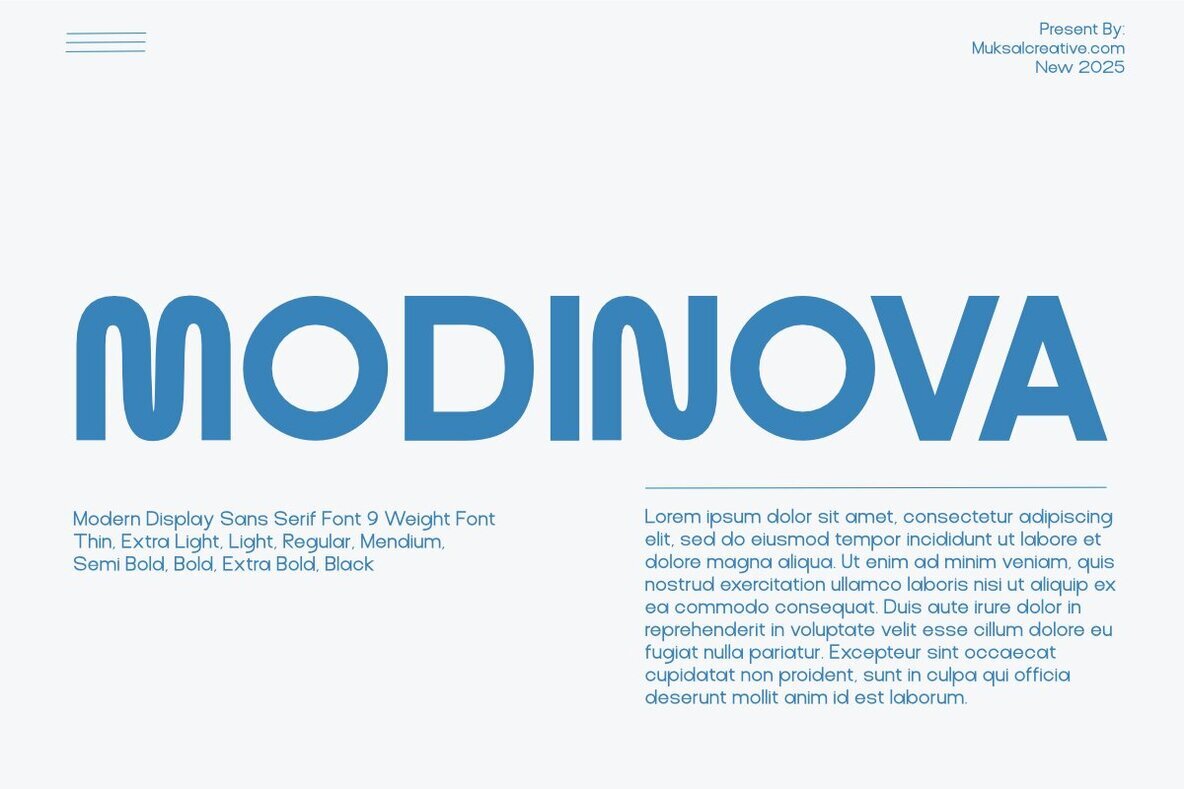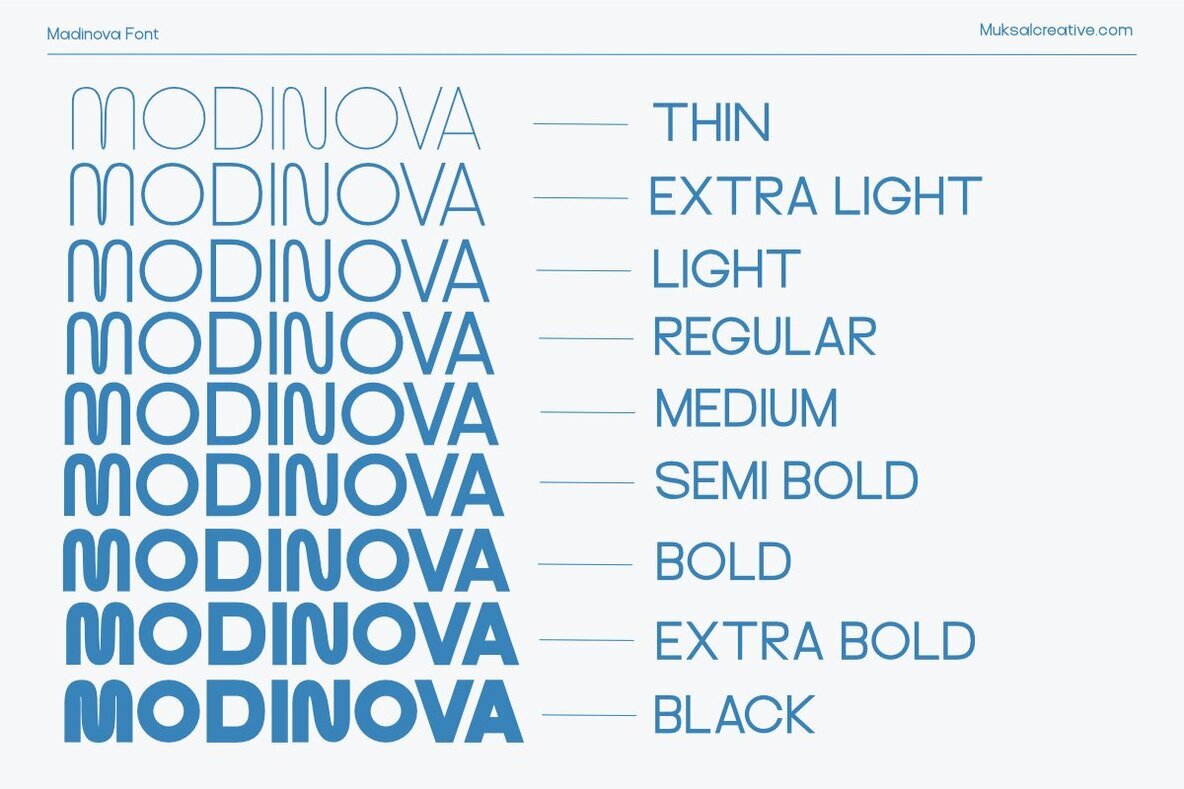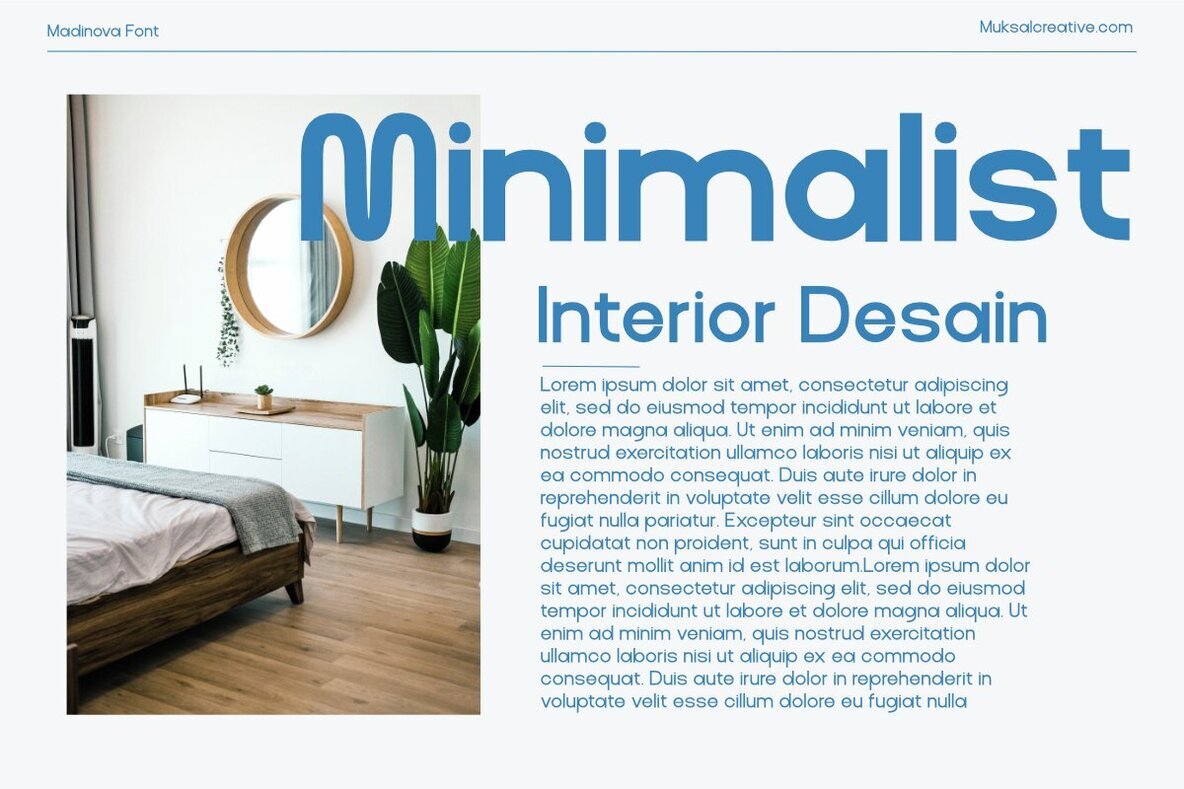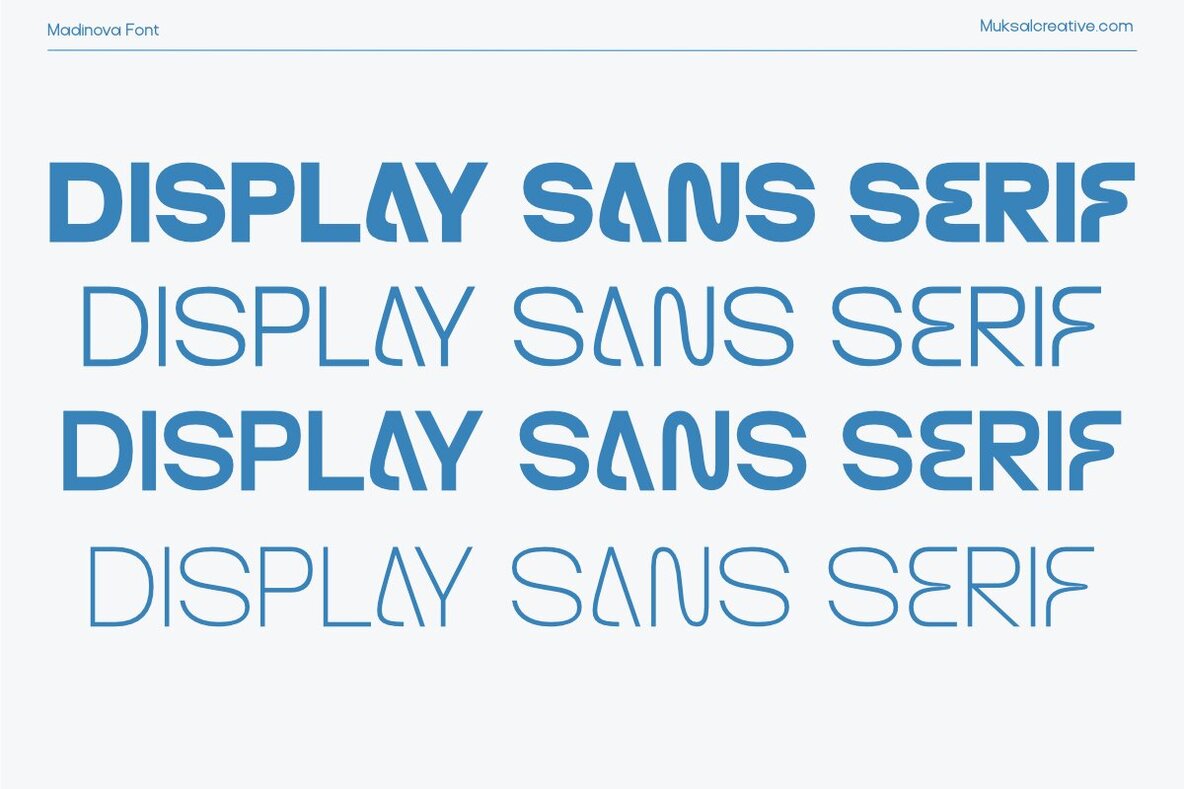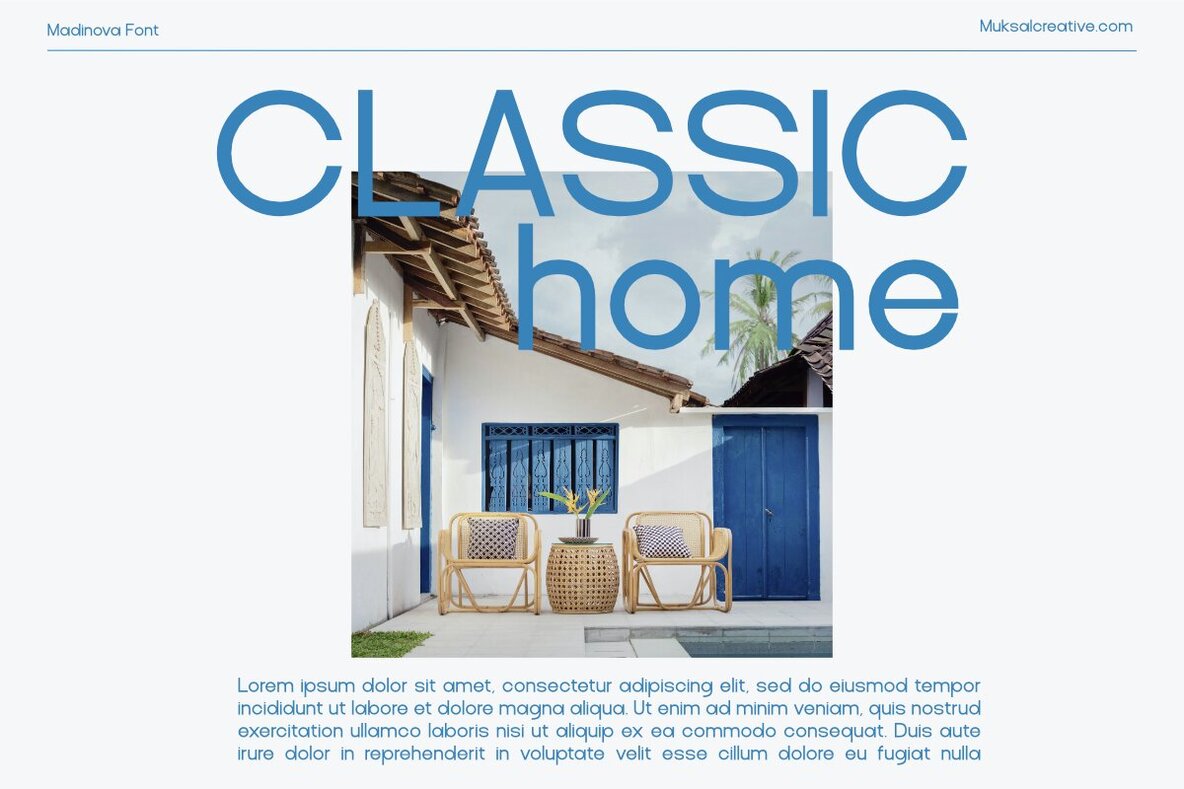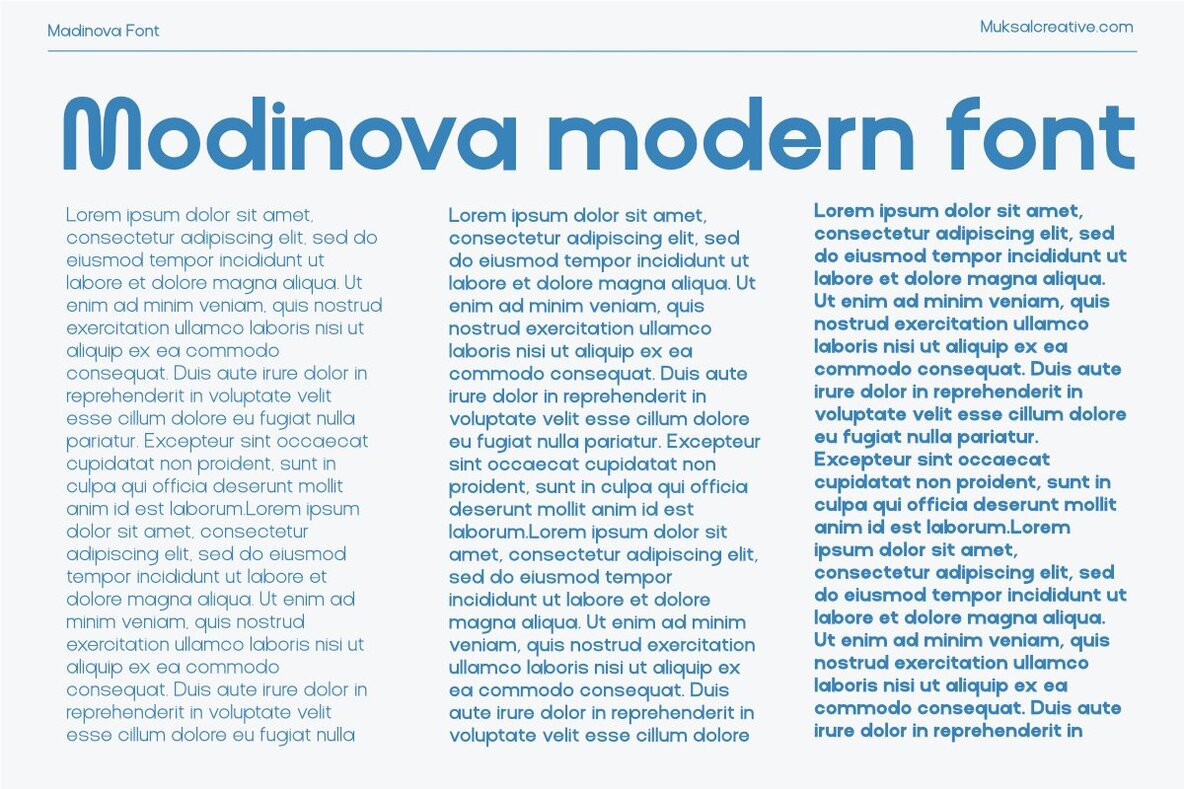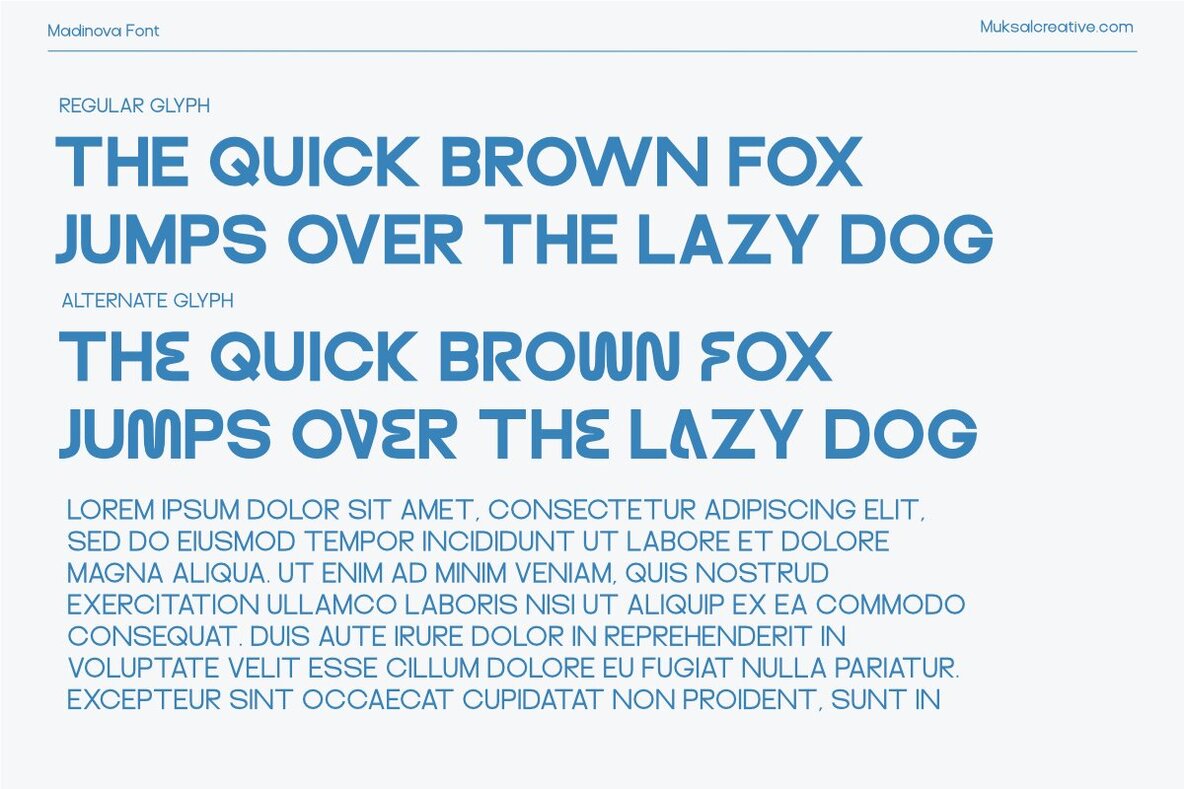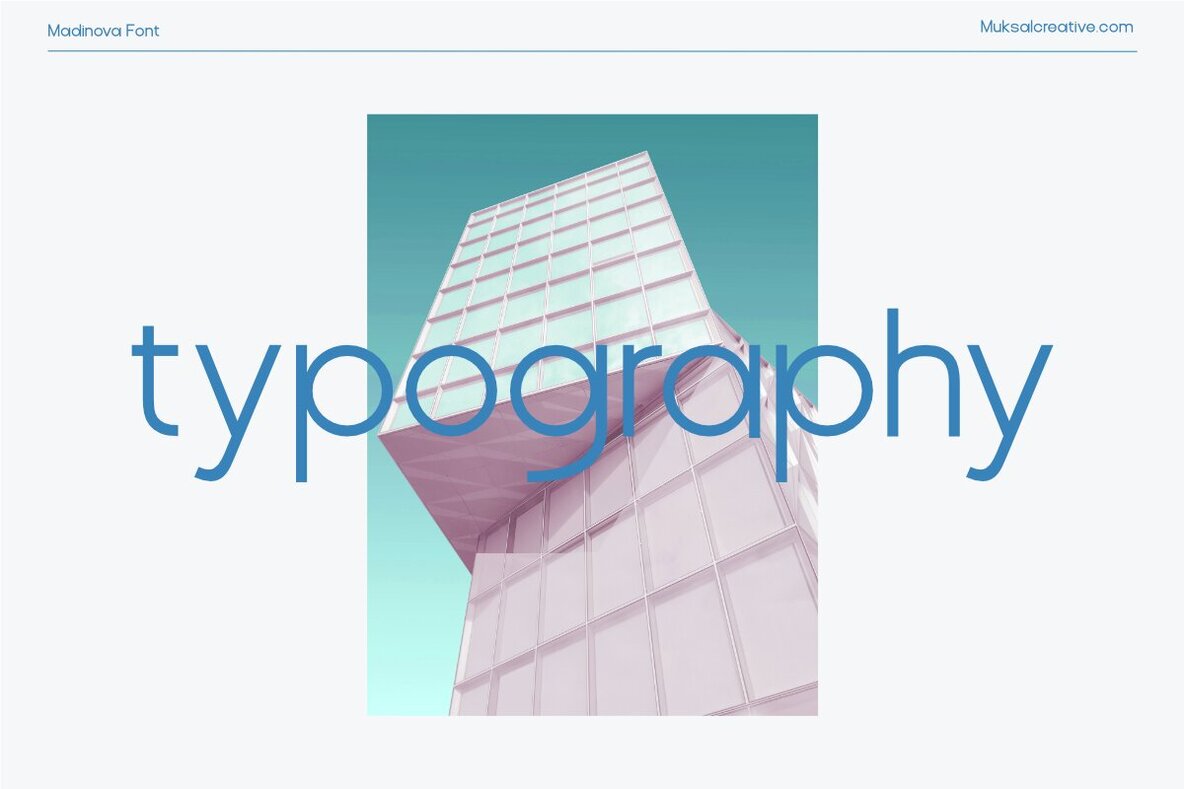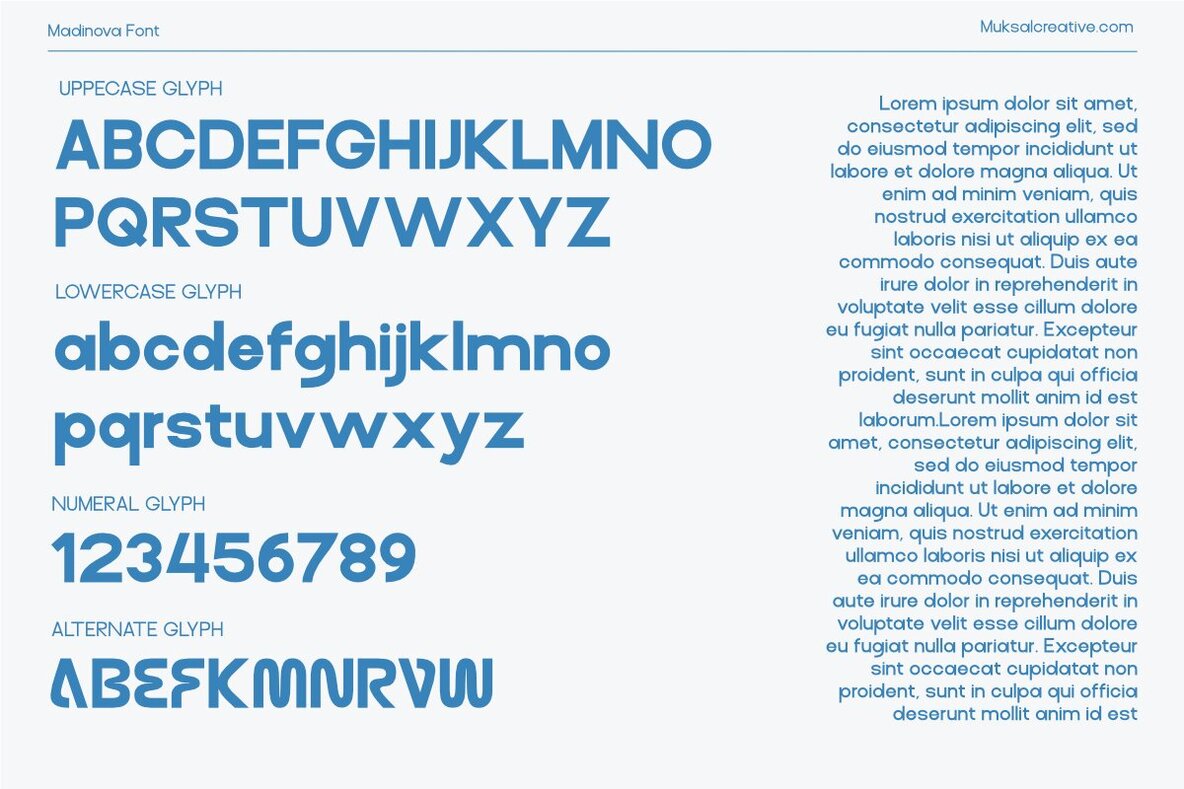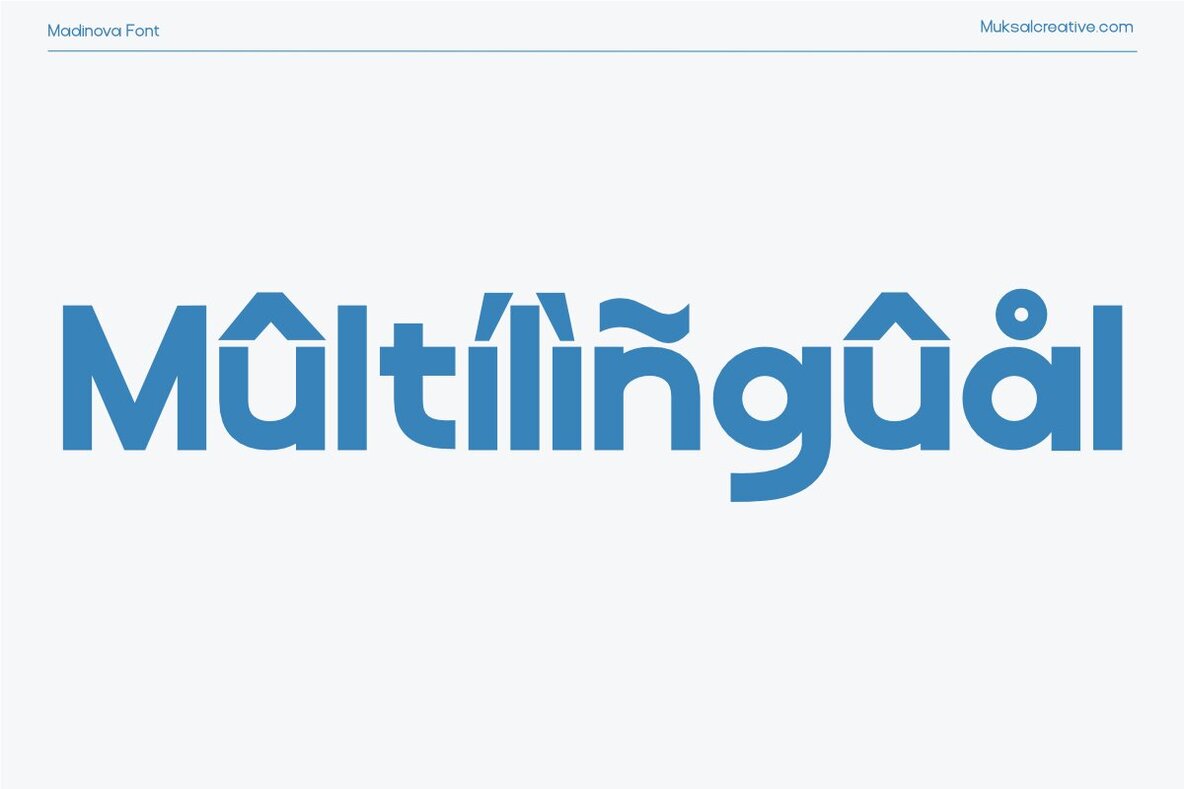
Modinova Font
Modinova is a modern sans-serif font that elegantly combines clarity with style, designed to provide flexibility for a range of design projects. Featuring nine distinct styles, from Thin to Black, Modinova caters to diverse design needs, making it ideal for anything from refined typography to bold, impactful headlines. Each character is meticulously crafted with balanced proportions and subtle detailing, making it a superb choice for editorial design, branding, digital interfaces, and more.
The font's clean, geometric design and precise contours lend it a professional yet welcoming appearance, ensuring readable text at all sizes. Key features of Modinova include its minimalist and modern sans-serif design, multilingual typography support, and suitability for both print and digital applications. With its contemporary aesthetic and unparalleled versatility, Modinova is an essential tool for creative designers looking to elevate their projects.